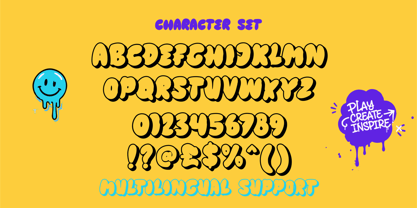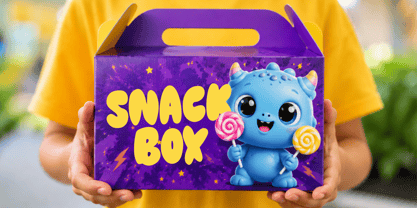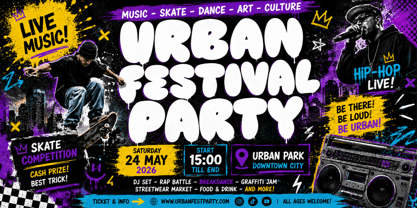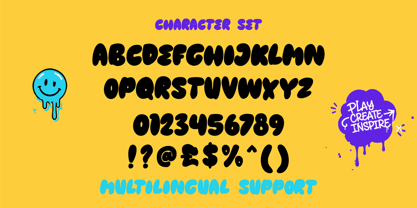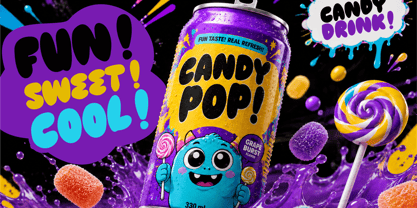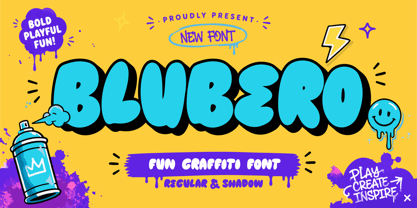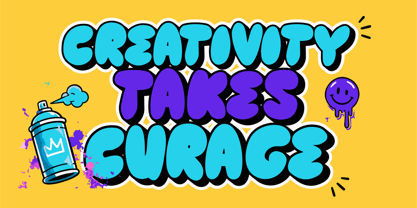
Blubero
The Blubero Font Family was designed by Sipanji and published by Sipanji21. Blubero contains 2 styles and family package options. More about this family
Blubero is a fun 3D graffiti display font designed for creators who want bold, playful, and dimensional typography with an energetic urban personality. Inspired by colorful graffiti walls, bubble lettering, cartoon graphics, street art, and modern throw-up styles, Blubero transforms ordinary words into expressive display lettering that immediately captures attention.
The typeface combines chunky proportions, rounded forms, and strong visual weight to create a friendly yet powerful graffiti aesthetic. Its playful construction makes it suitable for designs aimed at younger audiences, creative brands, streetwear projects, gaming communities, music artwork, and contemporary lifestyle products. The letters have enough personality to become a central graphic element while remaining recognizable and readable.
Blubero includes two complementary styles, Regular and Shadow. The Regular style provides the core graffiti appearance with bold and playful letterforms, making it ideal for logos, headlines, posters, apparel graphics, stickers, and branding. The Shadow style introduces an additional dimensional effect that gives words more depth and visual impact. Combining the two styles can create layered compositions with a strong 3D-inspired appearance.
The font includes uppercase characters, numbers, punctuation, and multilingual support, providing a versatile character set for a wide variety of design projects. Designers can create names, slogans, headlines, promotional messages, logos, and short phrases while maintaining a consistent visual identity.
Blubero works especially well for streetwear branding and apparel design. Its chunky graffiti shapes look striking on T-shirts, hoodies, jackets, caps, tote bags, and oversized clothing graphics. Add bright colors, gradients, highlights, shadows, or distressed textures to create contemporary street fashion artwork.
The font is also a strong choice for gaming and esports graphics. Its bold silhouette can be used for gaming logos, team graphics, streamer branding, YouTube thumbnails, Twitch graphics, tournament artwork, game titles, and promotional campaigns. The Shadow style adds extra depth to gaming compositions and can help create a more dynamic visual hierarchy.
For music and entertainment projects, Blubero provides an energetic aesthetic that works particularly well with hip hop, rap, pop, electronic, and youth-oriented creative content. Use it for album artwork, mixtape covers, concert posters, event flyers, merchandise, social media campaigns, and artist branding.
Blubero also adapts beautifully to children's products and playful commercial designs. Its rounded and cartoon-inspired appearance works for toy packaging, candy branding, snack products, children's events, stickers, activity books, party decorations, and colorful educational graphics.
Digital creators can use Blubero for YouTube thumbnails, Instagram posts, TikTok graphics, Pinterest artwork, promotional banners, channel branding, and social media campaigns. Its bold construction helps text remain highly visible, while the dimensional Shadow style adds extra visual interest to short headlines.
The font performs equally well in print applications including posters, flyers, packaging, labels, stickers, merchandise, signage, and promotional materials. Its strong shapes retain their personality across different sizes, making it suitable for both large display artwork and compact graphic compositions.
Blubero can also be customized creatively through color combinations, gradients, outlines, textures, highlights, and layered effects. The Regular and Shadow styles provide a strong foundation for building custom 3D typography without losing the original graffiti character.
With its combination of playful shapes, urban attitude, dimensional styling, and versatile character support, Blubero is designed for modern creatives who want typography that feels energetic and memorable. Whether you're creating a streetwear collection, gaming identity, music artwork, children's branding, social media campaign, or colorful promotional design, Blubero brings bold graffiti energy and fun 3D character to every word.